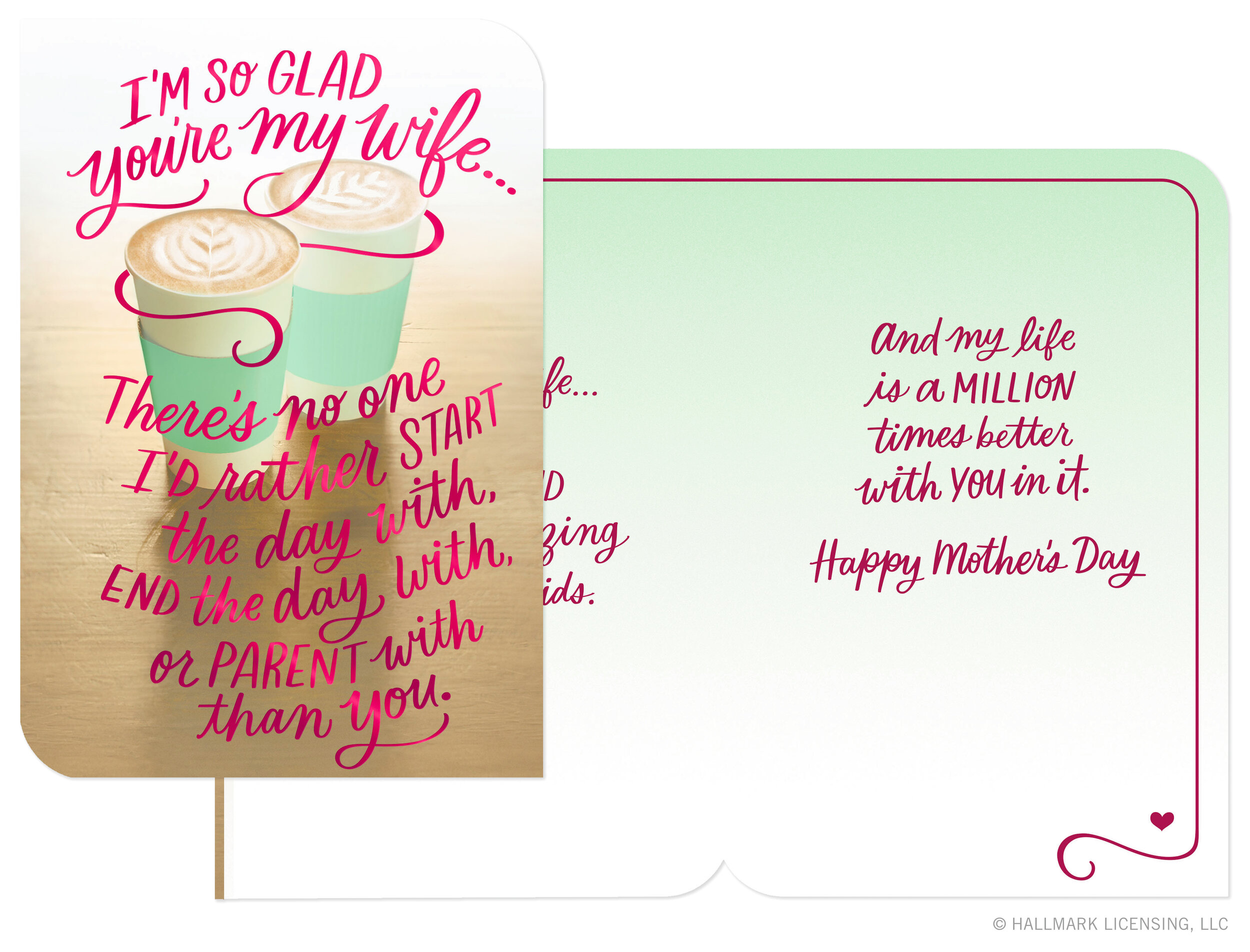
April Showers Bring May Flowers
Happy Mother’s Day, Daughter Card
Another day, another Mother’s Day card! This time my lettering is paired with this lovely illustration by David Pjecha. It’s important that my lettering match with the tone of the artwork which is an major consideration when I’m exploring style options. Enjoy!
Mother’s Day Collection for Hallmark
I’m back! Today I’m sharing this group of three Mother’s Day cards I created artwork for. In my job as an artist in the Visual Studios we create collections before actual product is planned and I was excited to see this look applied to these Mother’s Day cards! Have you picked out a card for your mom yet??
Mother’s Day Lettering
Friends! Mother’s Day is right around the corner. I loved getting to create lettering for some new cards this year and today I’m sharing this first one featuring my mono-weight script. (I also already ordered my mom a present this week that I know she is going to love!) Keep checking back for more of my Mother’s Day work, you can shop all Hallmark’s Mother’s Day cards here!